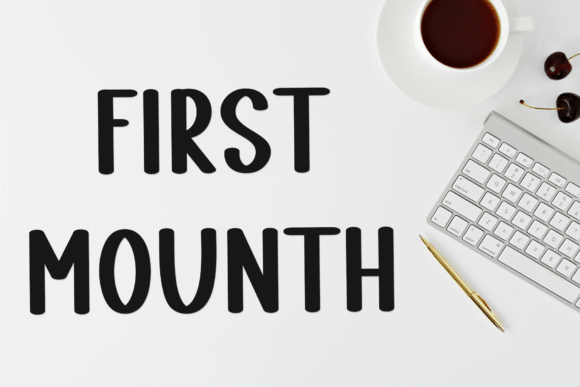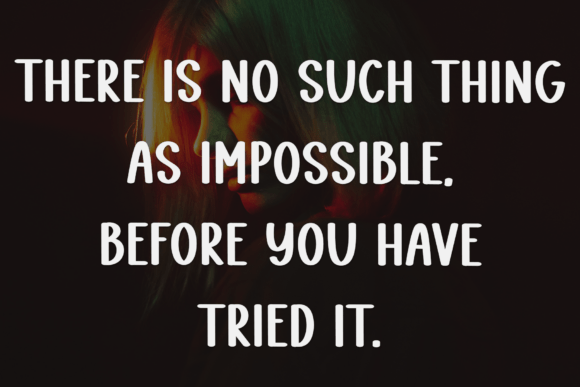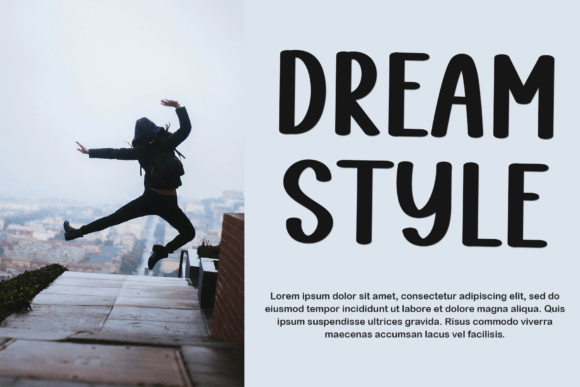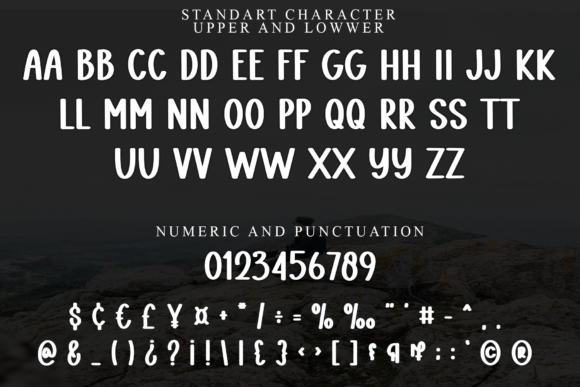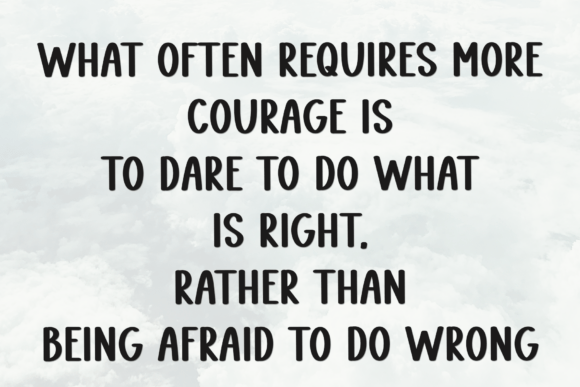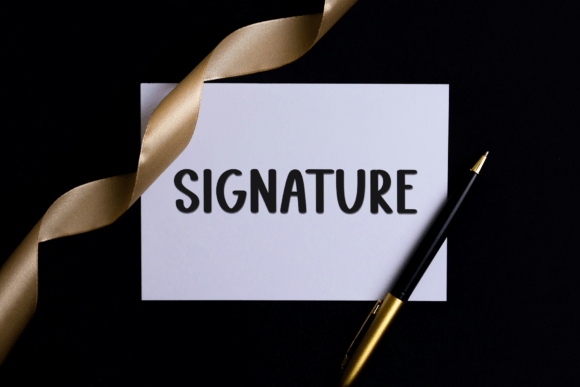
Dream Sunshine Font: Add a Ray of Sunshine to Your Designs
Are you looking for a font that can bring a touch of warmth and friendliness to your designs? Look no further than the Dream Sunshine Font. This casual and creative font is perfect for personal projects, invitations, social media graphics, and any other design that needs a relaxed and approachable feel.
The Characteristics of Dream Sunshine Font
Dream Sunshine Font is characterized by its round, playful strokes that create a charming and inviting aesthetic. The font’s hand-drawn look adds a fun and unique touch to any design, making it perfect for designers and crafters who want to add a personal touch to their work.
The font’s design is inspired by the warmth and happiness of sunshine, making it perfect for designs that need to evoke feelings of joy and positivity. Whether you’re creating a birthday invitation, a social media graphic, or a personal project, Dream Sunshine Font is sure to bring a smile to your audience’s face.
Features of Dream Sunshine Font
The font is also designed to be highly versatile, making it perfect for a wide range of design applications. Whether you’re creating a personal project, a commercial design, or a social media graphic, Dream Sunshine Font is sure to be a great choice.
Why Choose Dream Sunshine Font?
So why choose Dream Sunshine Font over other fonts? Here are just a few reasons:
- Unique and playful design: Dream Sunshine Font has a unique and playful design that is sure to stand out in any design.
- Highly versatile: The font is highly versatile and can be used in a wide range of design applications.
- Evokes feelings of joy and positivity: The font’s design is inspired by the warmth and happiness of sunshine, making it perfect for designs that need to evoke feelings of joy and positivity.
Design Ideas Using Dream Sunshine Font
Dream Sunshine Font is perfect for a wide range of design applications. Here are just a few ideas to get you started:
- Personal projects: Use Dream Sunshine Font to add a personal touch to your personal projects, such as scrapbooking, card making, and journaling.
- Invitations: The font is perfect for creating invitations for birthdays, weddings, and other special occasions.
- Social media graphics: Use Dream Sunshine Font to create social media graphics that are sure to stand out.
- Branding and packaging: The font can also be used for branding and packaging design, adding a touch of warmth and friendliness to your brand.
Dream Sunshine Font is a casual and creative font that is perfect for designers and crafters who want to add a touch of warmth and friendliness to their designs. With its unique and playful design, high versatility, and ease of use, it’s sure to be a great choice for a wide range of design applications. So why not give it a try and add a ray of sunshine to your designs?